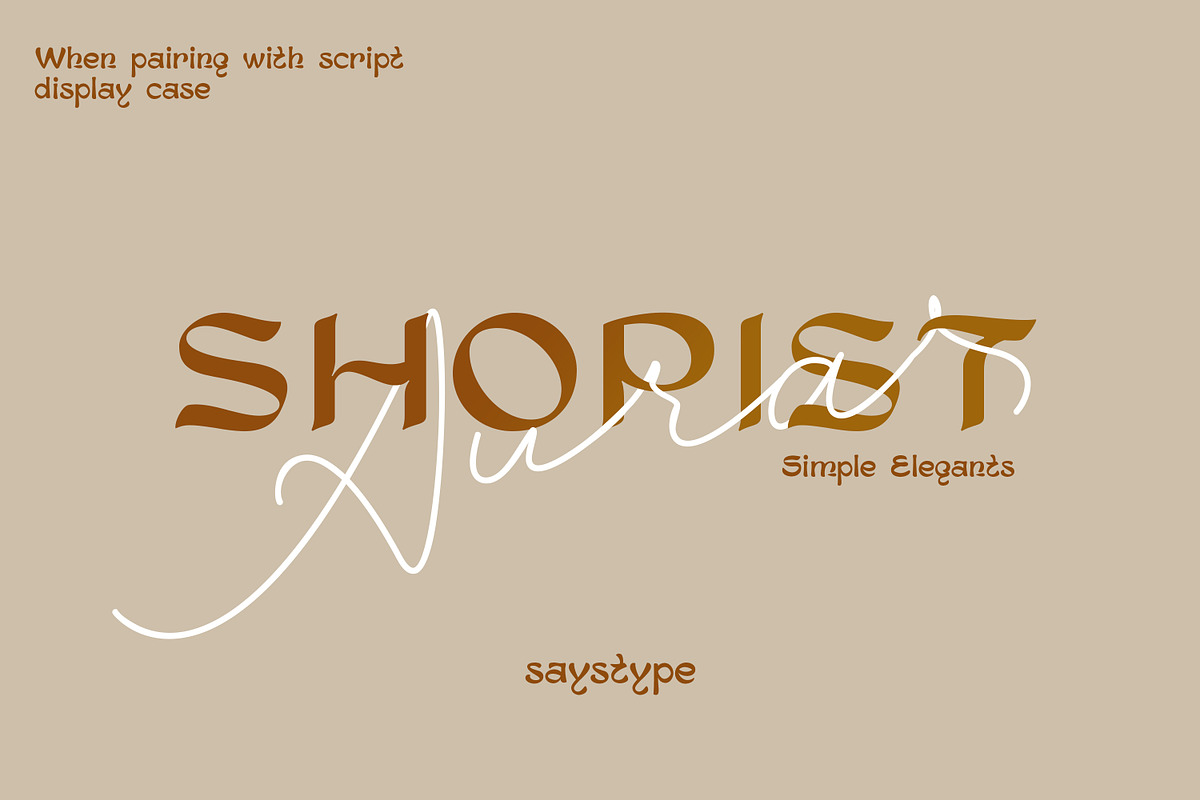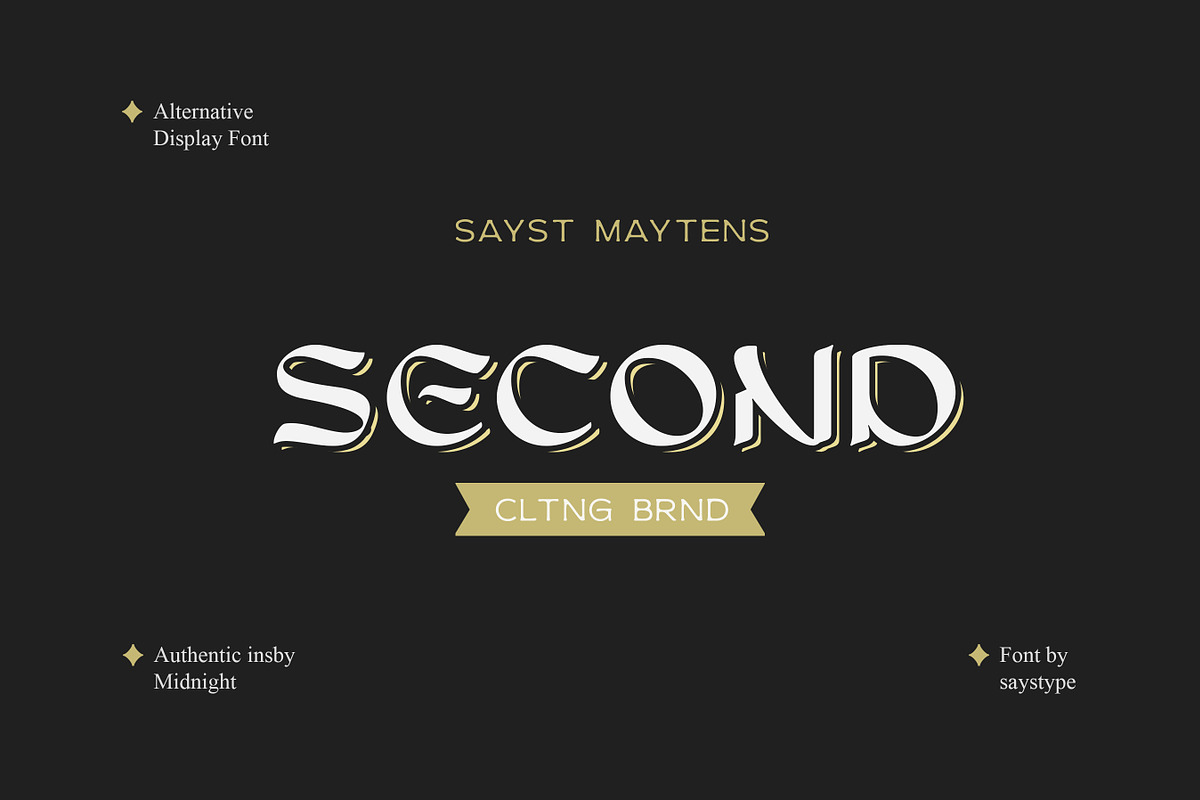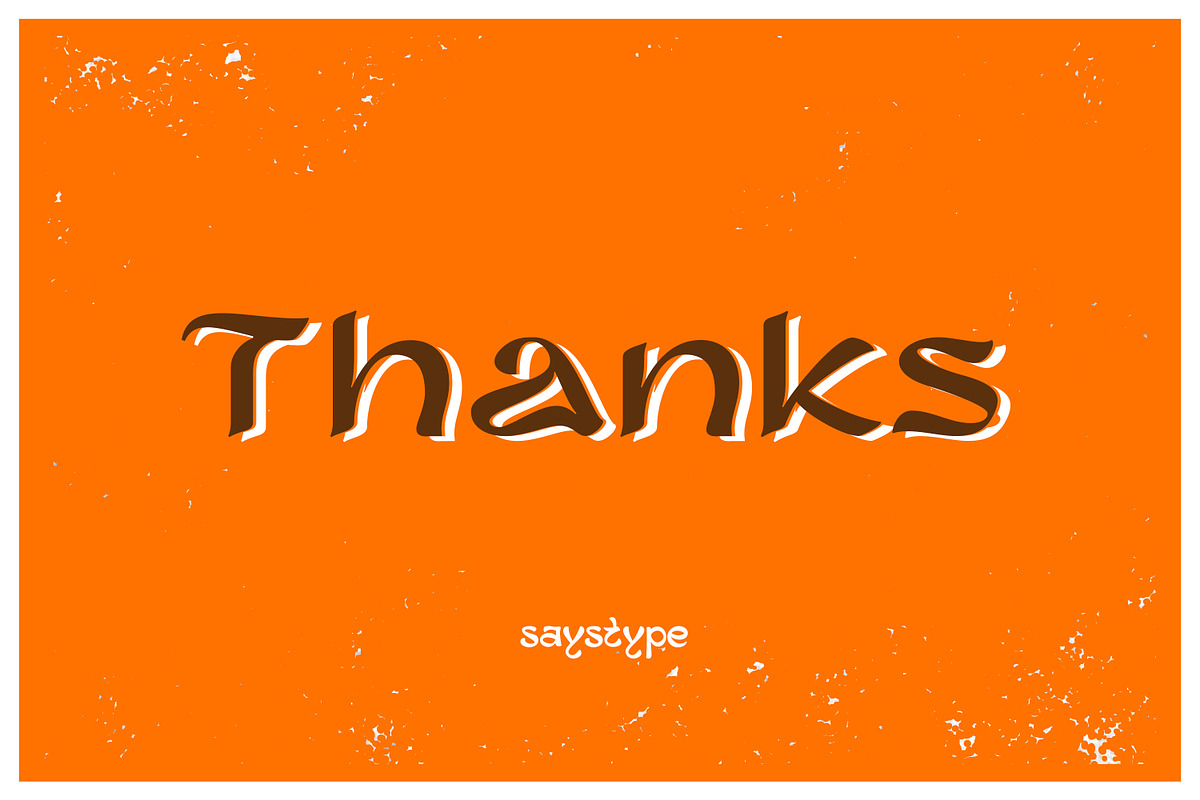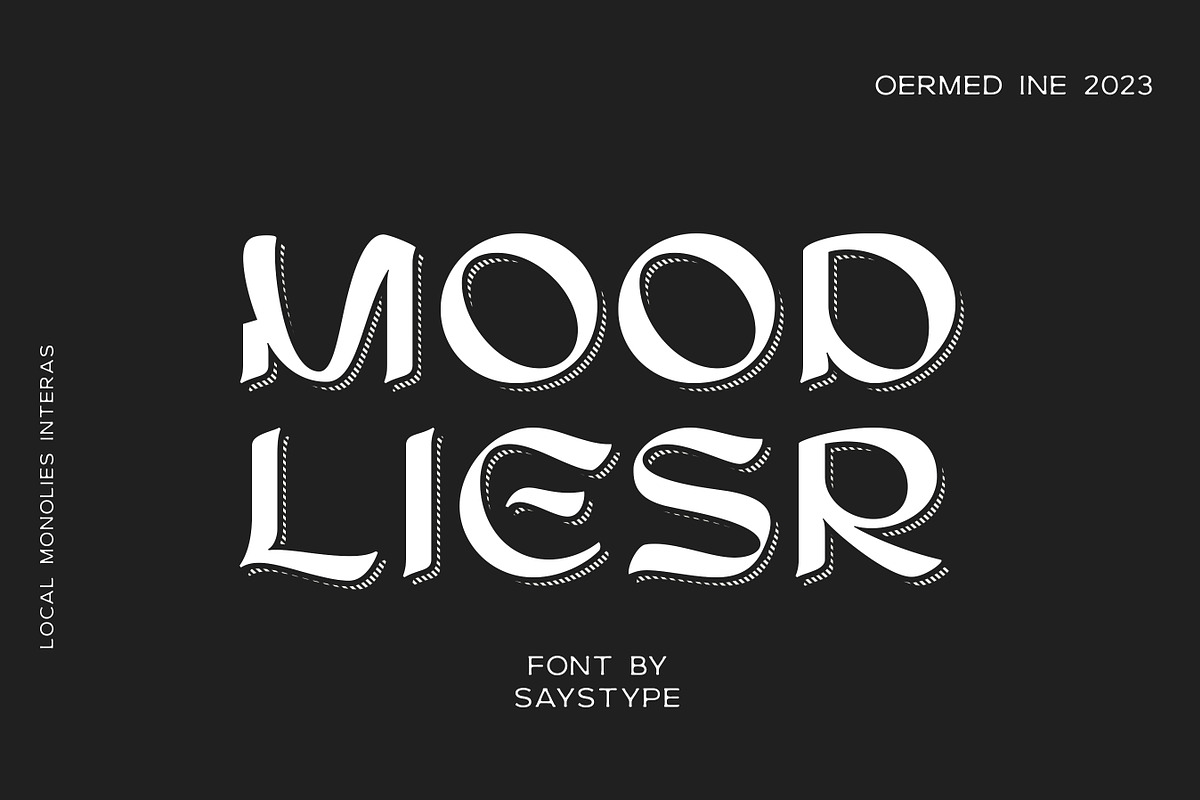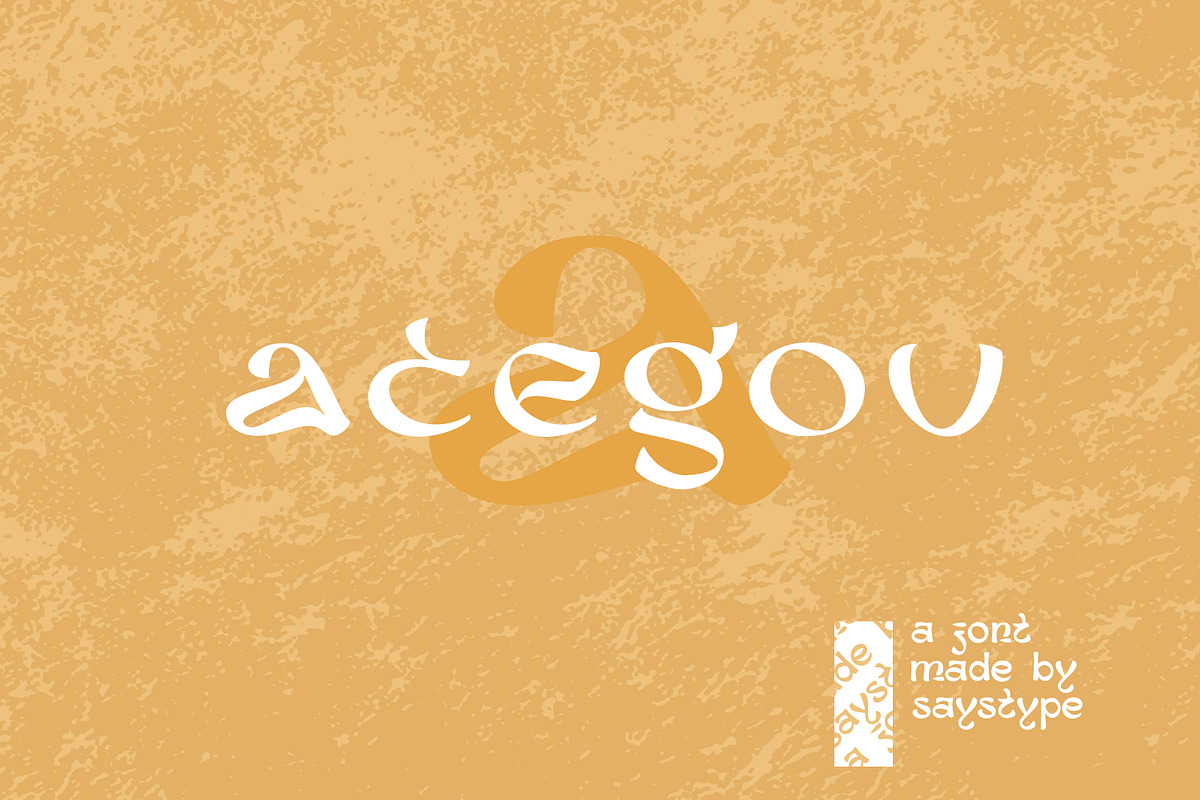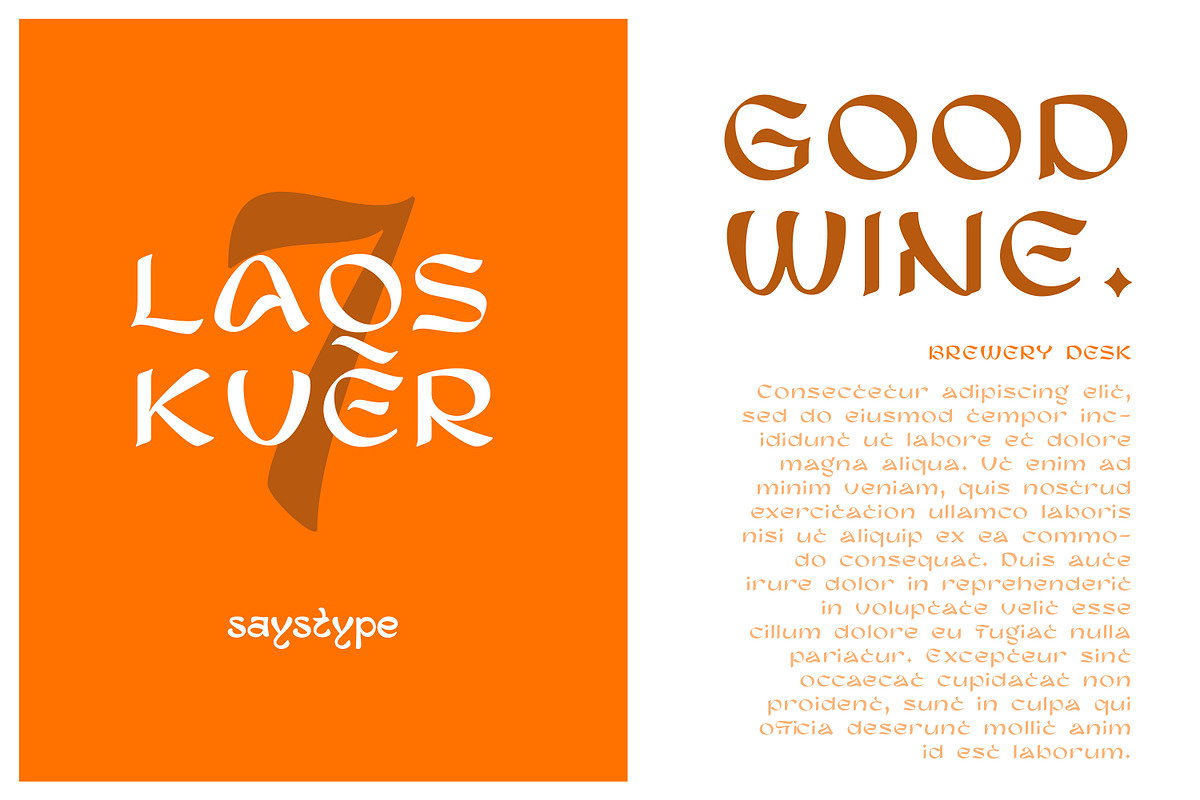
Says Display Maytens Typeface
Introducing our new graphic stuff "Says Display Maytens Font" Custom Display sans and decorative font style, Modern, Stylish, Clean and Ellegant style mixing Classic Touch. Suitable for any kind of project such as Main Display, Cover, logos, Branding, App, Letterhead Etc. Easy to use.